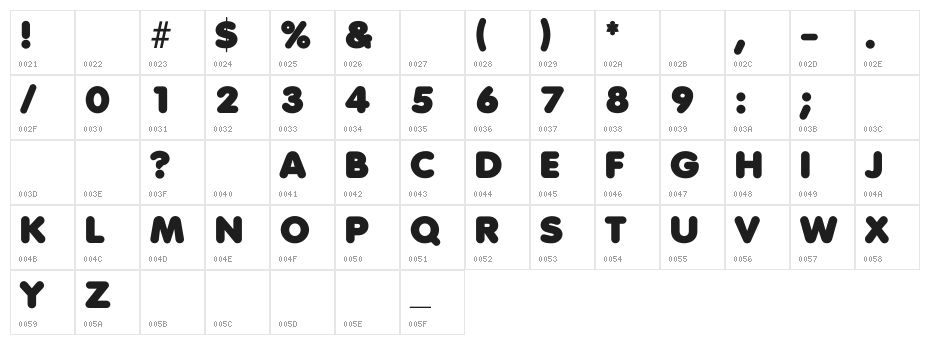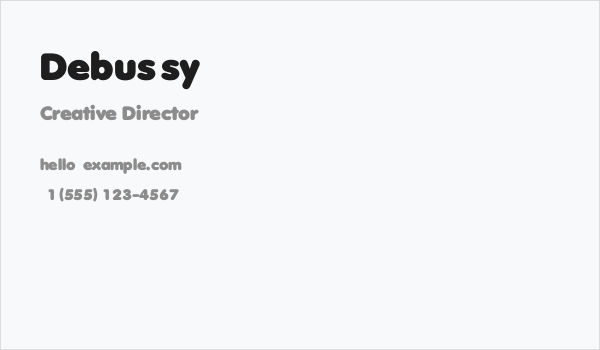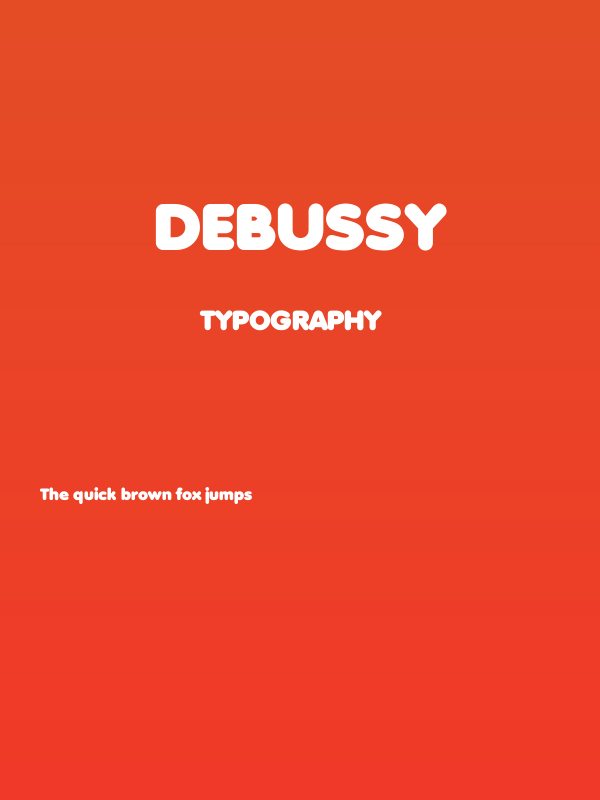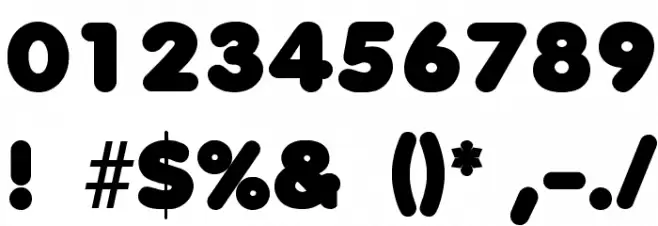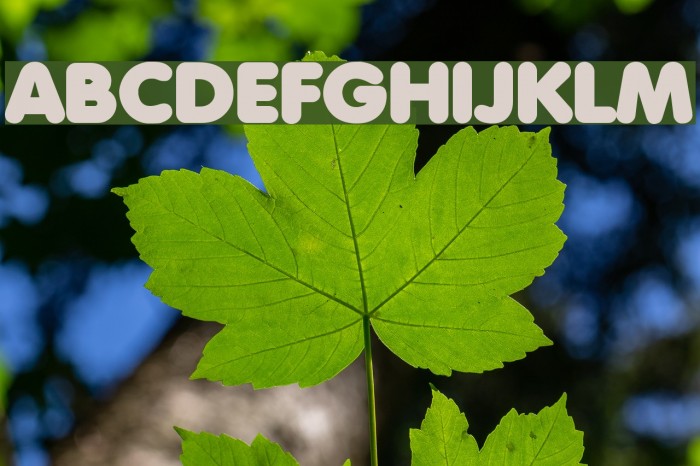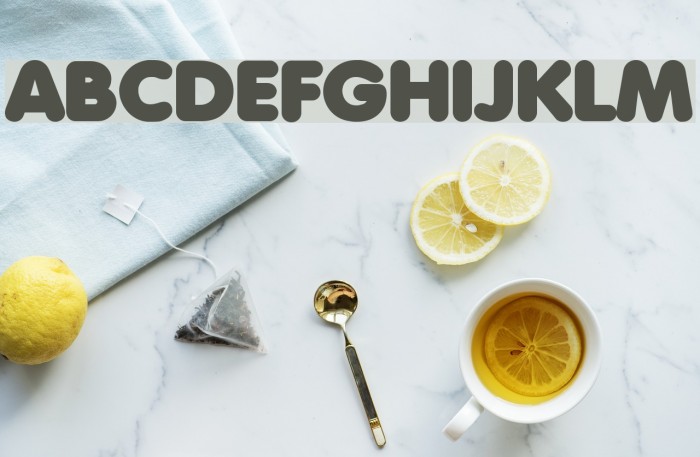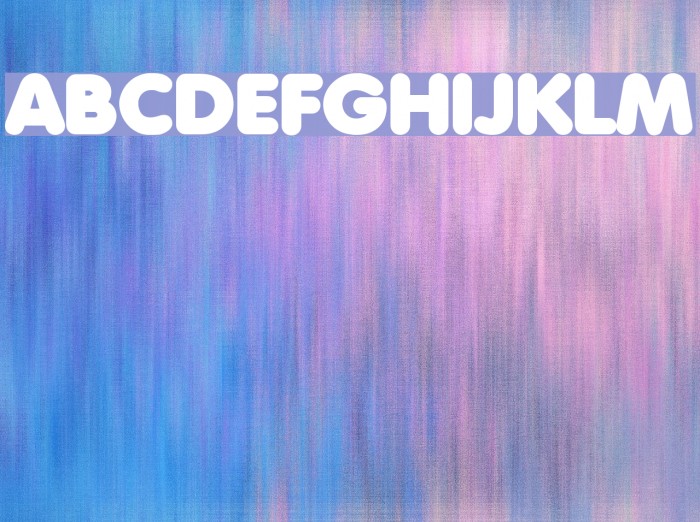
Debussy Font
Debussy Description
This font features a bold, rounded style with a playful and friendly appearance. The characters are uniformly thick, giving it a strong presence and making it highly legible. The rounded edges soften the overall look, making it approachable and suitable for a variety of informal applications. The numerals and special characters maintain the same rounded and bold characteristics, ensuring consistency across all glyphs. This font is well-suited for designs that aim to convey warmth and approachability, such as children's books, casual branding, or playful advertising.
| Overall Style | Playful |
| Use Case | Headlines, Logos, Informal Text |
| Proposed Projects | Ideal for children's books, casual branding, playful advertising, and informal digital content. |